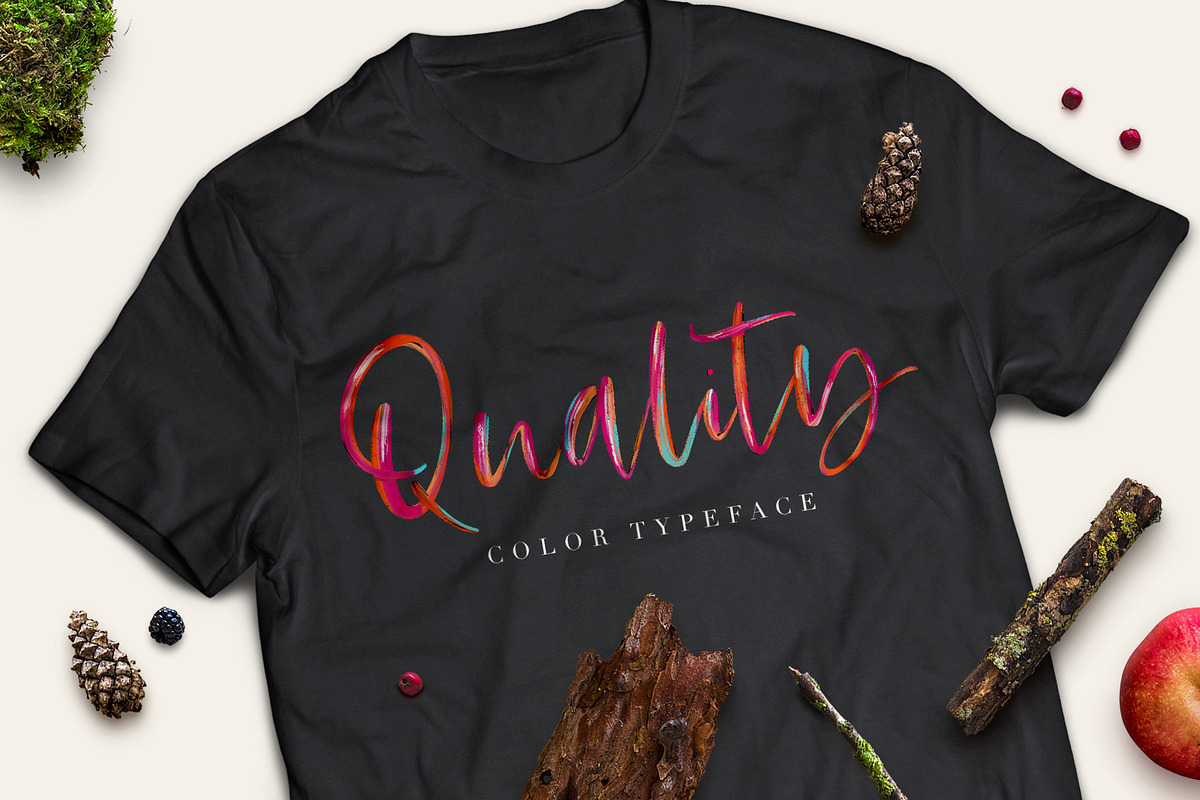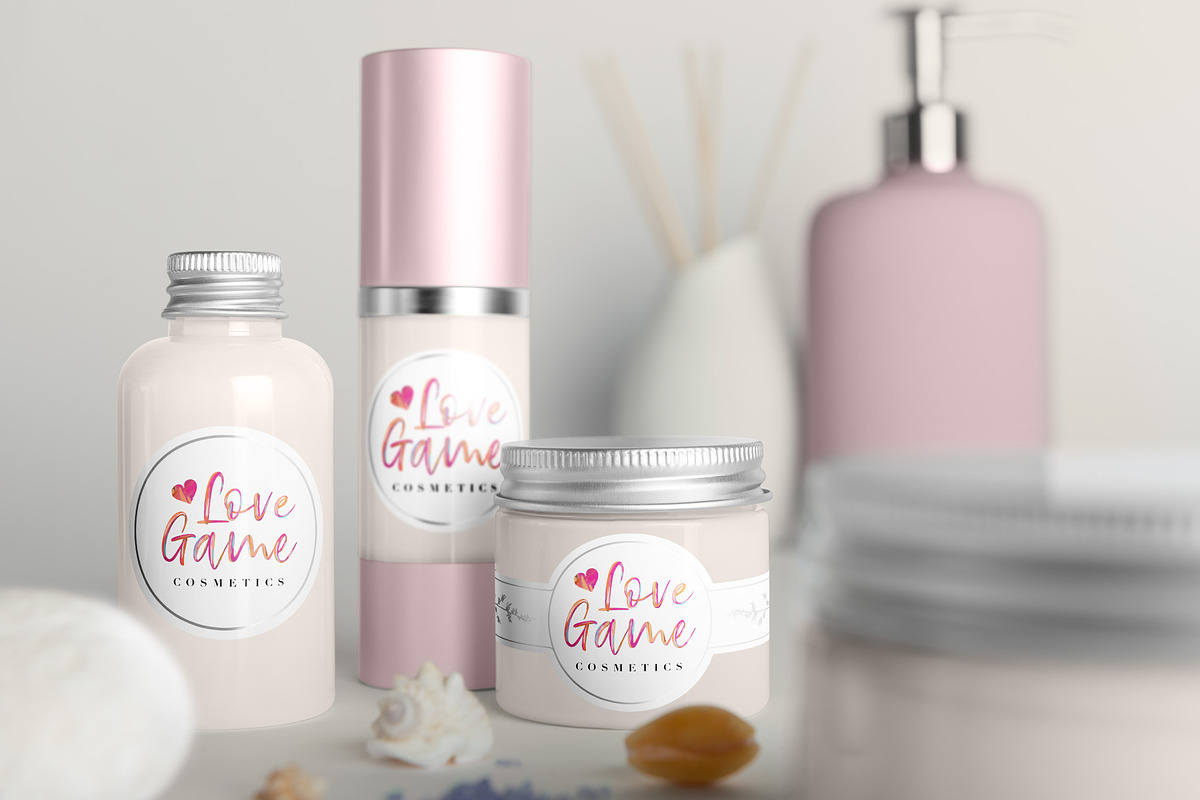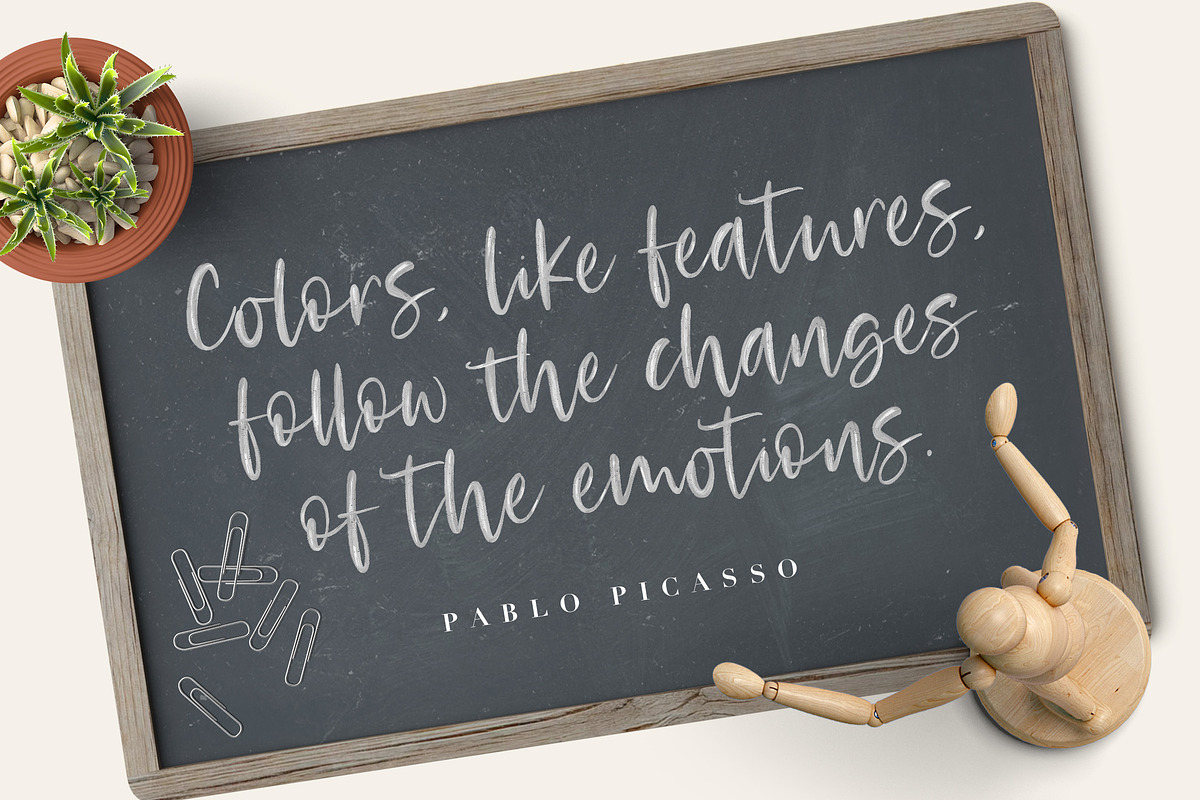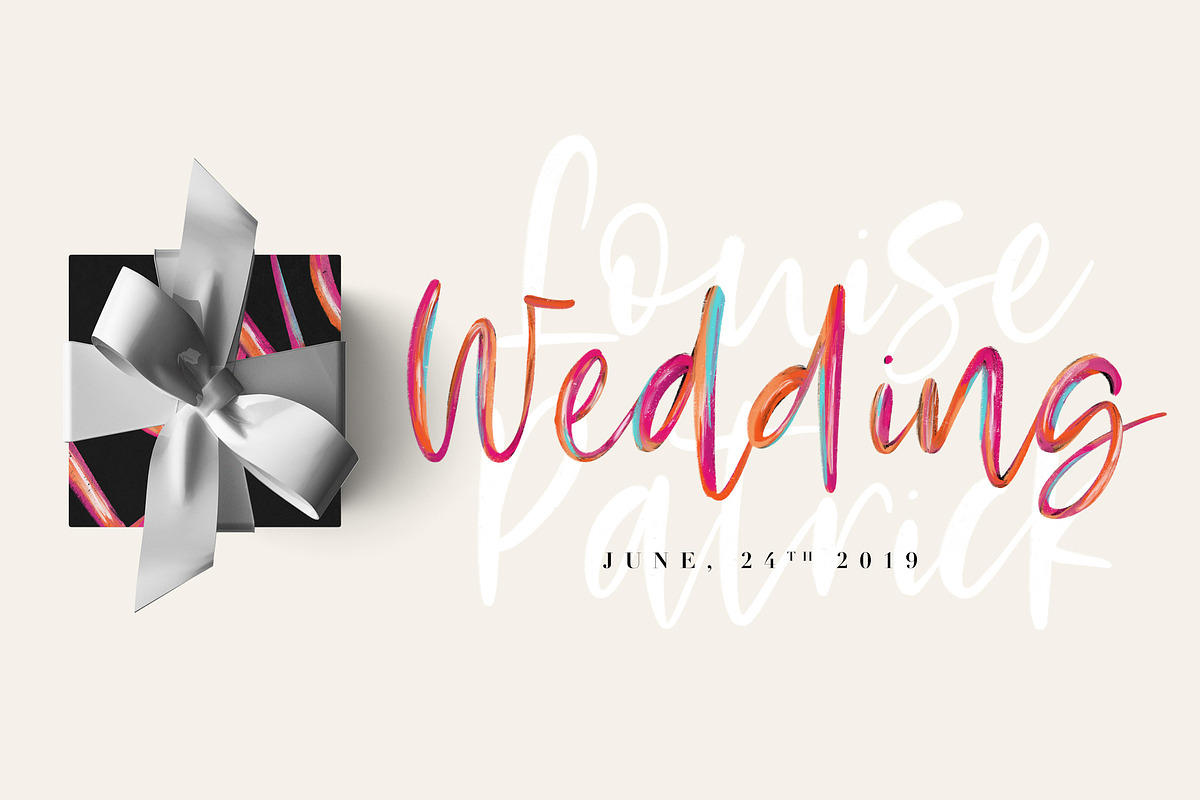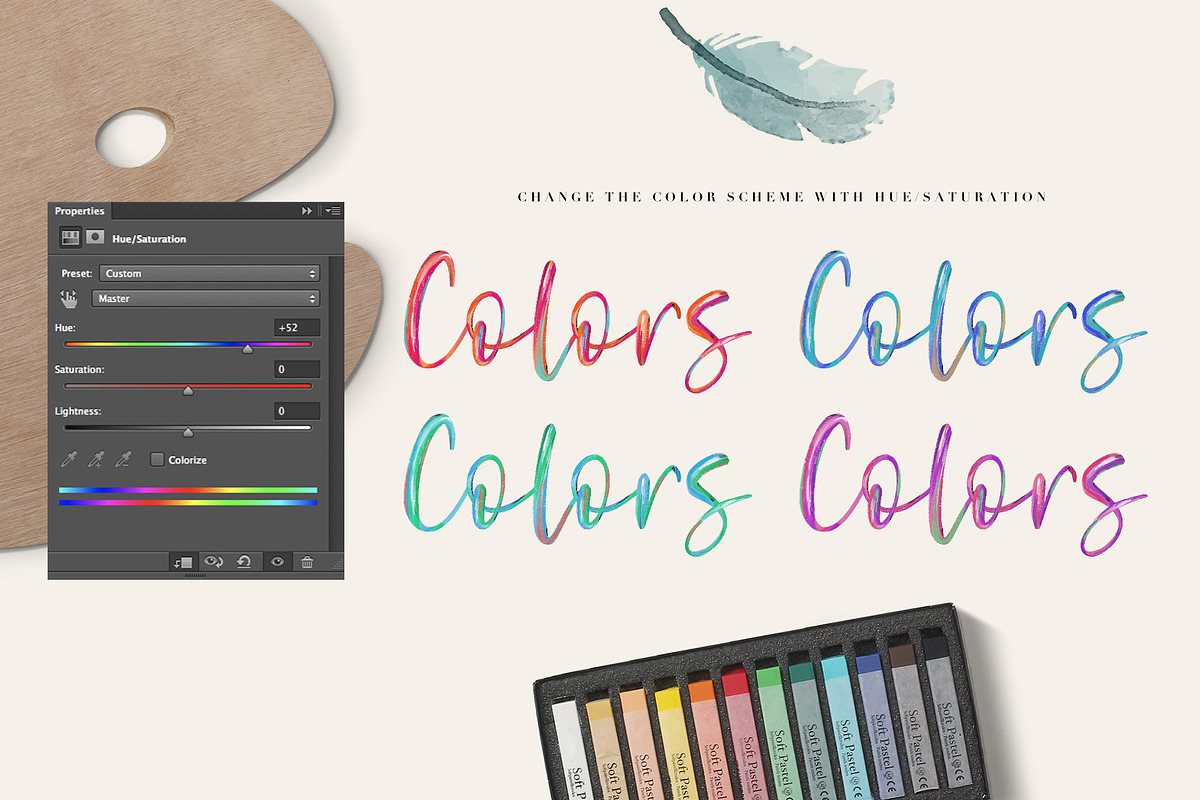
Rosetta SVG Color Font
I'm happy to introduce my new and very first color font: Rosetta. It is available in 2 different forms: SVG & Solid. You may know what a SVG font is, but this one have something special: I've made it with bright colors!
Rosetta SVG Color - With it's painted texture and a great color scheme, you'll be able to create fantastic graphic titles for your documents. In a few quick steps, you'll have the possibility to change the color palette to obtain exactly what you want! Check my video in the thumbnails to see how it works. In one word: easy!
Rosetta Black - This font contains exactly the same glyphs and design but this is the solid version, without any color. It works like any other .ttf font, with your favourite app.
ALTERNATES & LIGATURES:
I've added to this font a complete set of lowercase alternates and contextual ligatrures. It means that each lowercase is provided with an alternate glyph, to obtain a better handwritten style. The easiest way to use these alternates and ligatures is via the Glyphs panel of Photoshop or Illustrator (see my video in the thumbnails for a quick tutorial). But you can still access all these alternates with the separate .ttf alternate file provided with both version of the font. The ligatures are in the numeral keys.